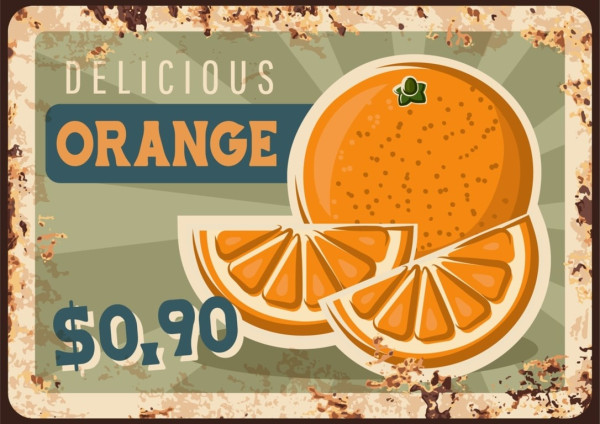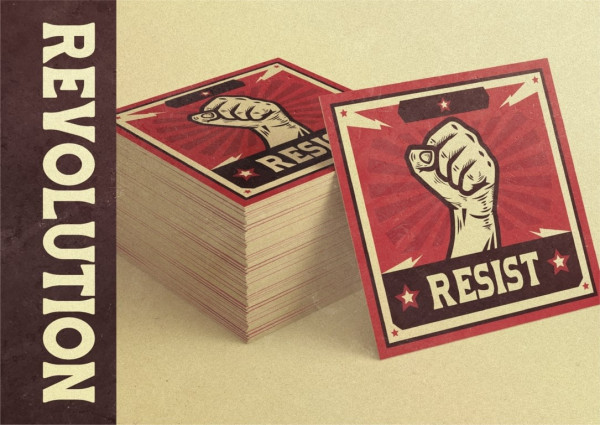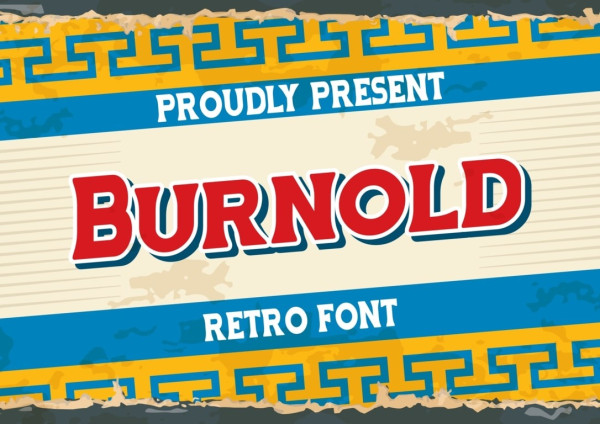
Burnold Display Font
Burnold Display Font, a nostalgic vintage serif font. Drawing inspiration from the signages of the 1950s and 1960s, this font is designed to evoke the charm of the good old days. With its timeless appeal, Burnold Display is the perfect choice for logos, headlines, signages, and other formal applications such as invitations, labels, magazines, books, greeting or wedding cards, packaging, fashion, makeup, stationery, novels, labels, and any advertising purposes. Transport yourself back in time with Burnold and infuse your designs with a touch of classic elegance and enduring style.